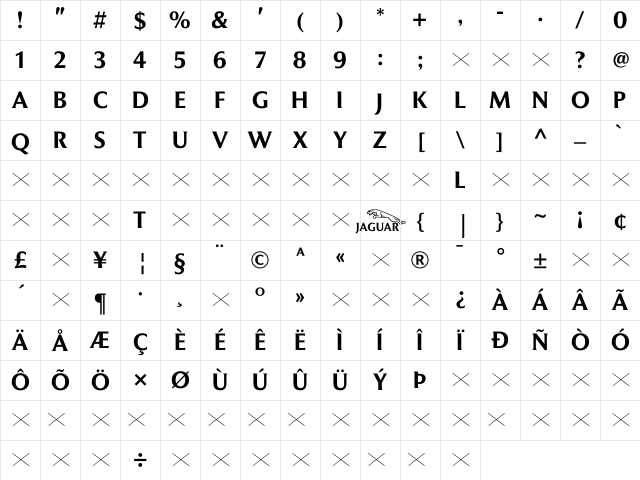
Complete JaguarTitlingJC Medium glyph index. Displaying only characters natively supported by JaguarTitlingJC Medium font.
JaguarTitlingJC is a composed and adaptable typeface that performs quietly and consistently across a wide range of design contexts.